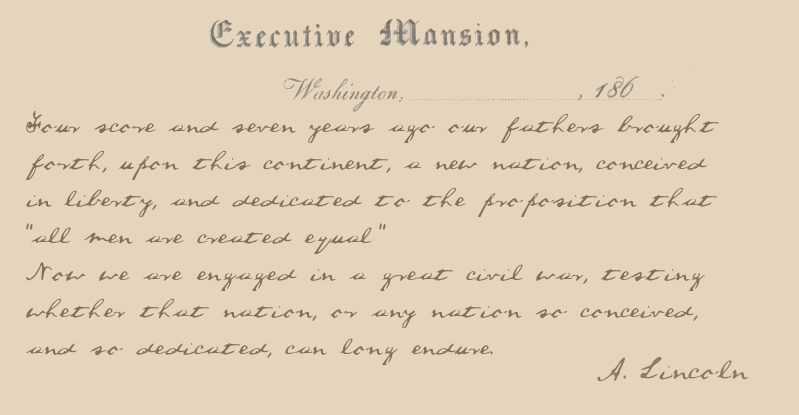
ALincoln Font by Steve Woolf is a free handwritten font with the sweep and speed of a hurried signature. Letters lean and loop unpredictably, shifting from broad strokes to fine flicks. The finish is distinctly unruly.
Designers after an expressive personal mark could use it for music posters, fashion branding, and event invitations. Its restless line suits subjects built around performance or individual style. In editorial design, it can turn a pull quote or magazine opener into a handwritten gesture.
A Lincoln Font by Steve Woolf is a free handwritten font.
ALincolnFont was Steve Woolf’s first attempt at creating a font. It is based on a manuscript copy of the Gettysburg Address written in Abraham Lincoln’s own hand and archived at the Library of Congress. An example of ALincolnFont appears under White House letterhead.